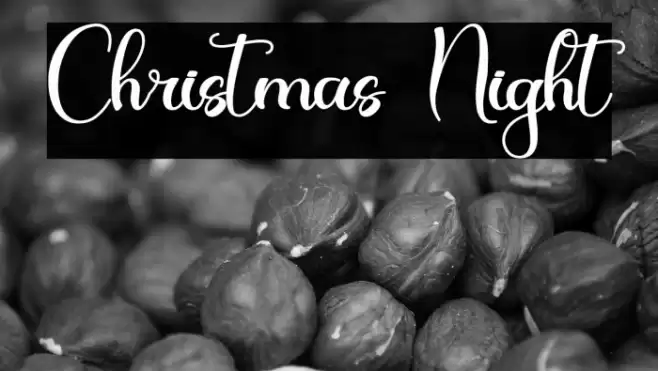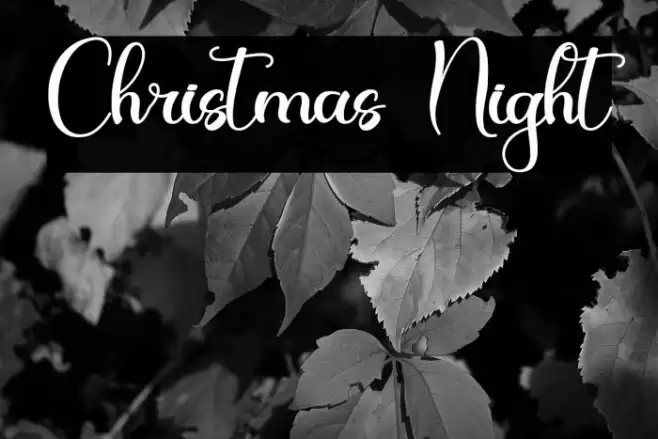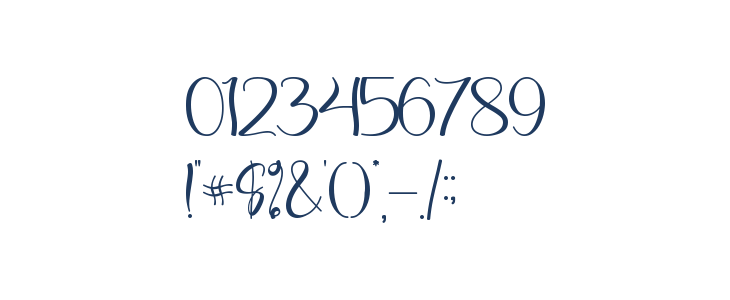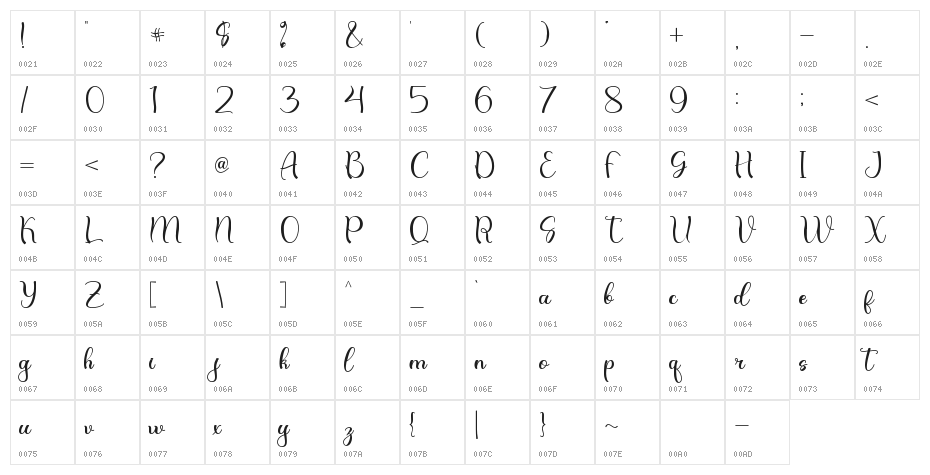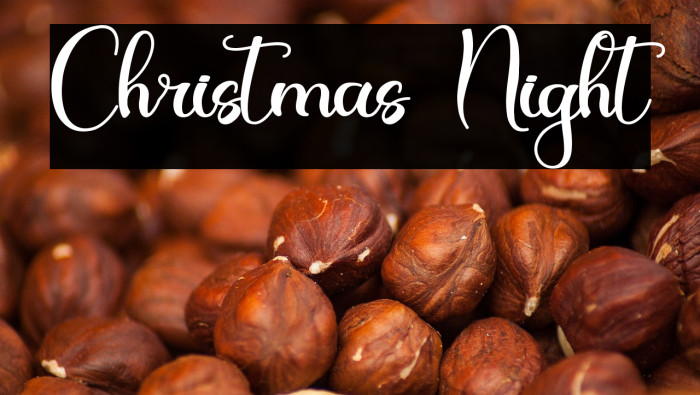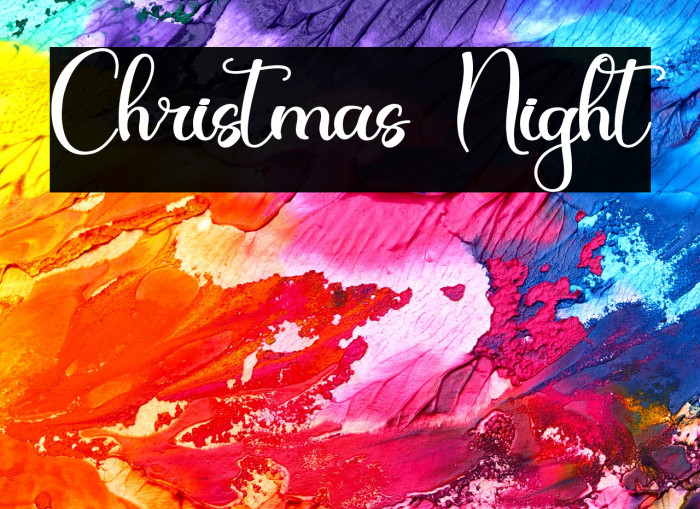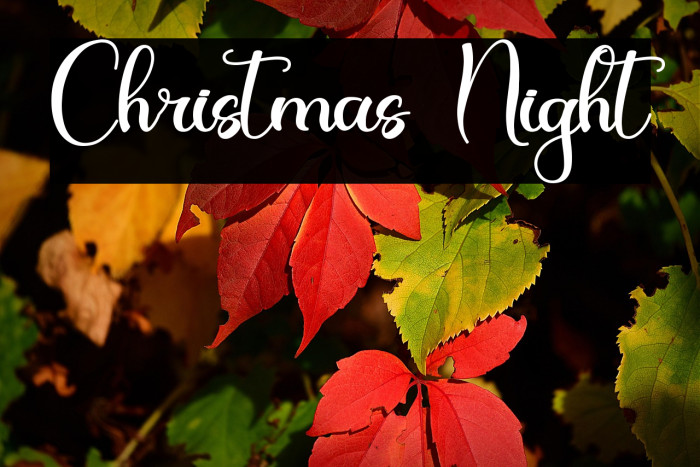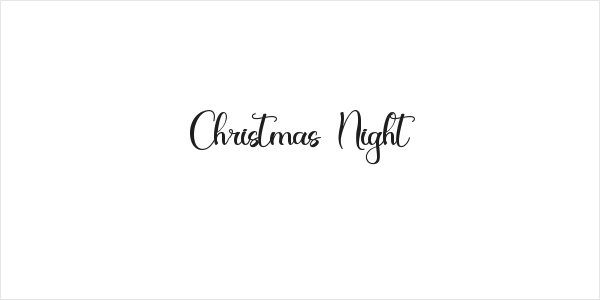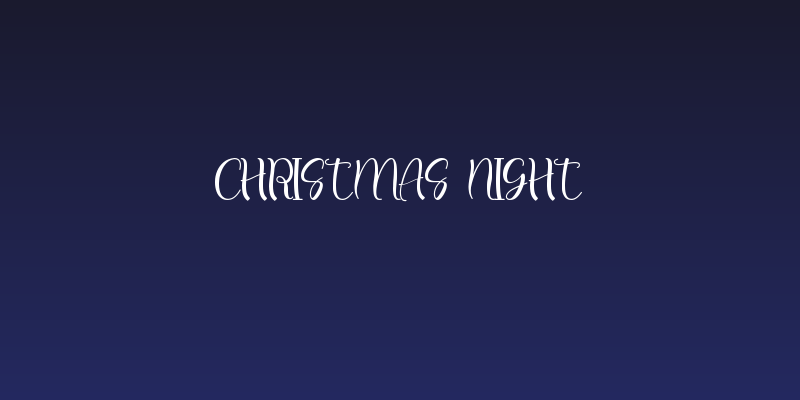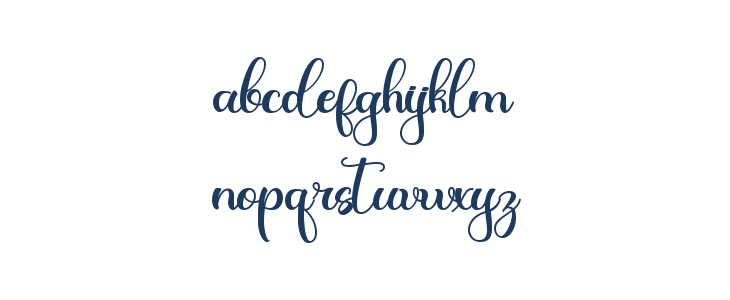
Christmas Night Font
Christmas Night Description
This font exudes a festive and elegant charm, characterized by its flowing script style that mimics the fluidity of handwritten calligraphy. The uppercase letters are tall and graceful, with sweeping curves and delicate loops that add a touch of sophistication. The lowercase letters maintain a consistent style, with smooth connections and a slightly playful demeanor. Numbers are designed with the same elegance, featuring gentle curves and a balanced structure. Special characters are thoughtfully integrated, maintaining the overall aesthetic of the font. This font is perfect for creating a warm and inviting atmosphere, ideal for holiday-themed projects or any design that requires a touch of elegance and flair.
A festive, elegant script font with flowing, calligraphic style from Regular fonts.
- Proposed Projects: Ideal for holiday cards, invitations, festive branding, and decorative signage.
- Use Case: Headlines, Invitations, Decorative text